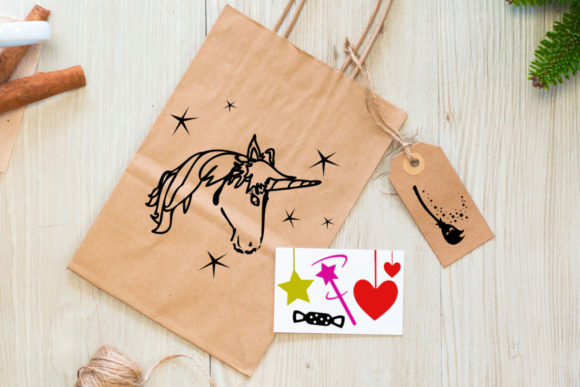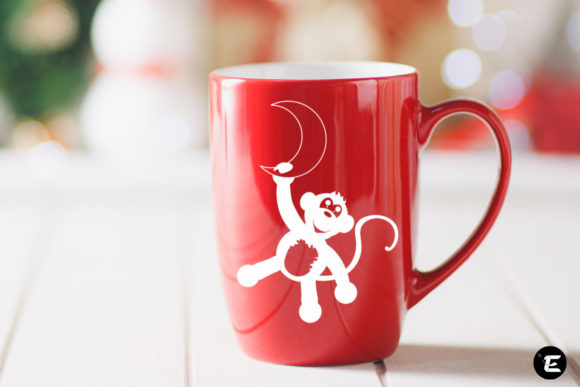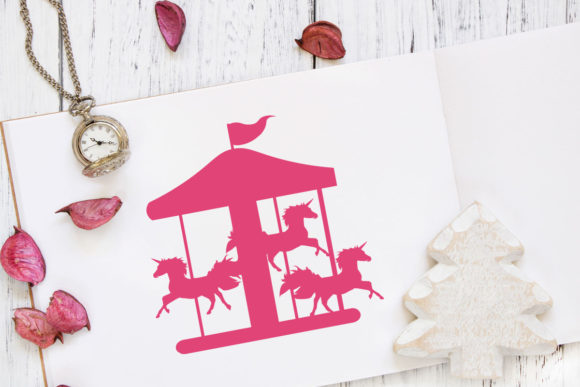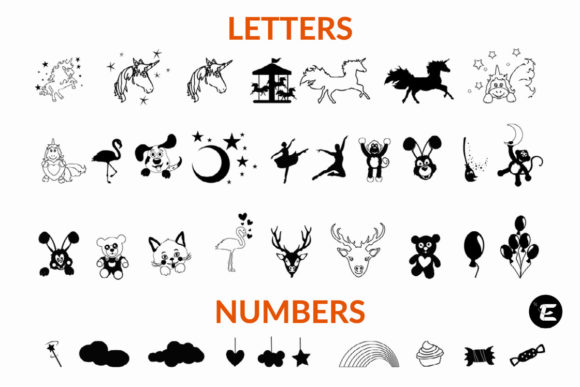
Magical Font
About Magical Font
“Magical” is a delightful and versatile dingbats font that adds a touch of sweetness, festivity, and warmth to any design. Whether you’re working on crafts, digital designs, presentations, or greeting cards, this font has the potential to become your go-to choice for various occasions.
With its charming and whimsical symbols, “Magical” brings a sense of enchantment and wonder to your designs. Each character is carefully crafted to evoke a magical atmosphere, making it perfect for projects related to fantasy, fairy tales, celebrations, and more.
When used in crafts, “Magical” can bring a magical touch to scrapbooking, DIY projects, and handmade creations. Its unique symbols can be used to decorate cards, gift tags, party favors, and other crafty items, adding an extra dose of charm and personality.
In digital design, “Magical” shines as a font that can transform your visuals into captivating and memorable experiences. Whether you’re designing social media graphics, website elements, or digital invitations, this font allows you to infuse a sense of magic and joy into your designs.
Presentations also benefit from the whimsical nature of “Magical.” Use it to create eye-catching title slides, section dividers, or decorative elements that make your presentations stand out and engage your audience. Its playful symbols can add a touch of storytelling or emphasize key points in a visually appealing way.
Greeting cards become even more special with “Magical.” From birthday cards to holiday greetings, this font allows you to create unique and memorable designs that capture the recipient’s imagination and convey your heartfelt wishes in a whimsical and charming manner.
The versatility of “Magical” lies not only in its design but also in its ability to adapt to different styles and themes. Whether you’re aiming for a vintage-inspired look, a modern and sleek design, or something in between, this font can complement your vision and enhance your creative projects.
Embrace the magic of “Magical” and let it become your favorite go-to font. Explore its vast range of symbols and characters, and infuse your designs with a sense of wonder and joy. No matter the occasion, this font has the potential to bring a touch of enchantment to your creations and make them truly special.